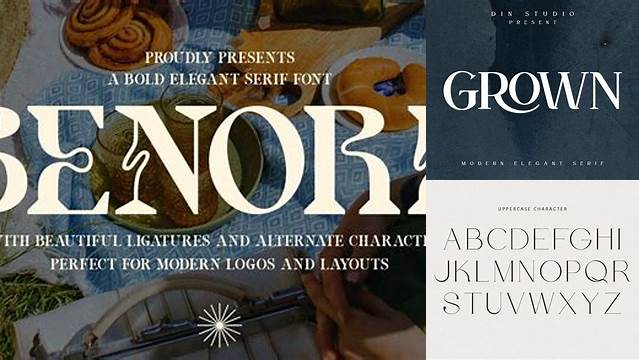
Serif Fonts Free Download: Your Guide
Are you on the hunt for serif fonts? You're in the right spot, guys! This article is your one-stop shop for everything related to serif fonts, including where to snag a serif font free download zip file, how to choose the perfect one, and some cool ways to use them. So, buckle up, and let's dive into the world of elegant typography!
What's the Buzz About Serif Fonts?
Alright, let's start with the basics. What exactly are serif fonts? Simply put, a serif font is a typeface that has small strokes, or “serifs,” at the end of the main strokes of each letter. Think of those little feet or tails that give the letters a classic and often more formal look. These fonts are super popular and have been around for ages, making them a staple in design and typography. Why do designers and regular folks love them so much? Well, there are a few reasons.
First off, serif fonts often scream tradition, authority, and a sense of trust. They're like the well-dressed friend you bring to a fancy party – always a good choice! That's why you'll see them used in everything from book publishing to official documents. They're also known for their readability, especially in long-form text. The serifs help guide your eye across the page, making it easier to read large blocks of text. This is why you'll find them in novels, newspapers, and magazines – they're just easier on the eyes for extended reading.
Beyond their practical uses, serif fonts have a certain aesthetic appeal. They bring a touch of elegance and sophistication to any design. They can be classic, like Times New Roman, or more modern and stylish, like Garamond or Didot. They come in a wide range of styles, from the sturdy and reliable to the delicate and artistic, giving you tons of options to match the vibe of your project. Think about the covers of classic books, or the headlines in a fancy fashion magazine – chances are, they're using a serif font to grab your attention and set the tone. Basically, serif fonts are versatile, reliable, and always a good choice.
So, if you're looking to add a touch of class, improve readability, or just want to explore the world of typography, serif fonts are an awesome place to start. And the best part? There are tons of serif font free download zip files available, so you can start experimenting right away!